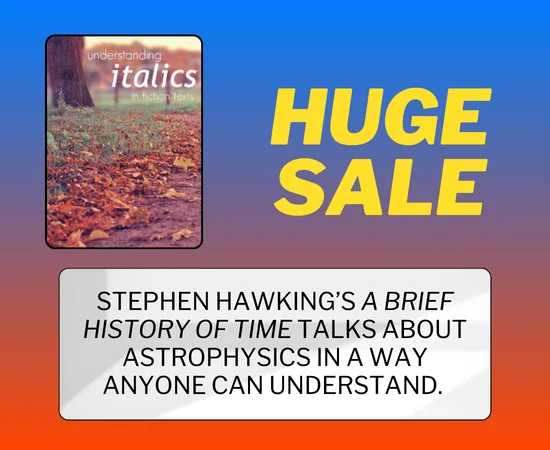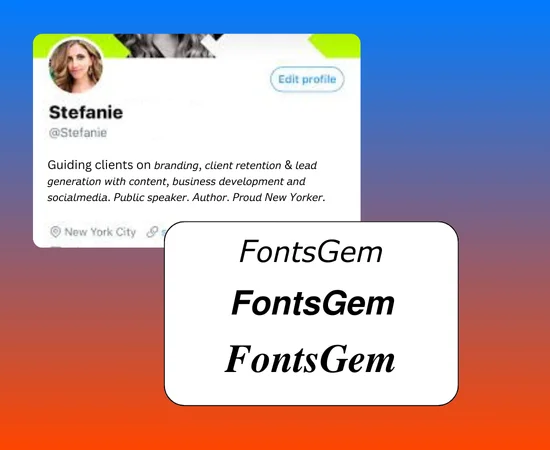
Here, you can find everything about italic fontsโno need to switch between multiple sites!
Now, you can introduce creativity to your project by using our tool. Whether it’s social media bios or stories, our tool helps you easily embed these fonts wherever they needed.
Use italic fonts when you want to emphasize and differentiate messages from other content.
Letโs explore the forms of italic fonts provided by our tool, like Bold Italic, Fancy Italic, Sans Serif Italic, and many more. All these versions are Unicode-based, with beautiful and stylish designs.
The History of italic
For italic fonts trace back to their origin period in Italy. Around 1500, the famed Italian printer Aldus Manutius introduced the first italic typeface. Manutius was looking for a more compact typeface to conserve space and reduce the cost of printing books. Italics allowed elegance and compactness without sacrificing readability or aesthetics.
Over time, the use of italics evolved. Unlike cursive, which mimics handwriting with more connected letters, italics are designed with a subtle slant, offering a distinct, formal style that remains legible and decorative.
Today, italic fonts are serve as a visual tool for emphasis, differentiation, and stylistic appeal in text.
Tips for Using Italics Effectively
Don’t underline italics text, as it is already contrasting.
Italics breathe life into your writing, giving your words an expressive and engaging tone. It works well for both personal and professional use. Whether youโre writing an email or a letter to your boss, this font helps you highlight important details and create memorable points with ease. It gives a formal and polished look to your overall content, so there’s no need to worryโfeel free to use it in your daily communication.